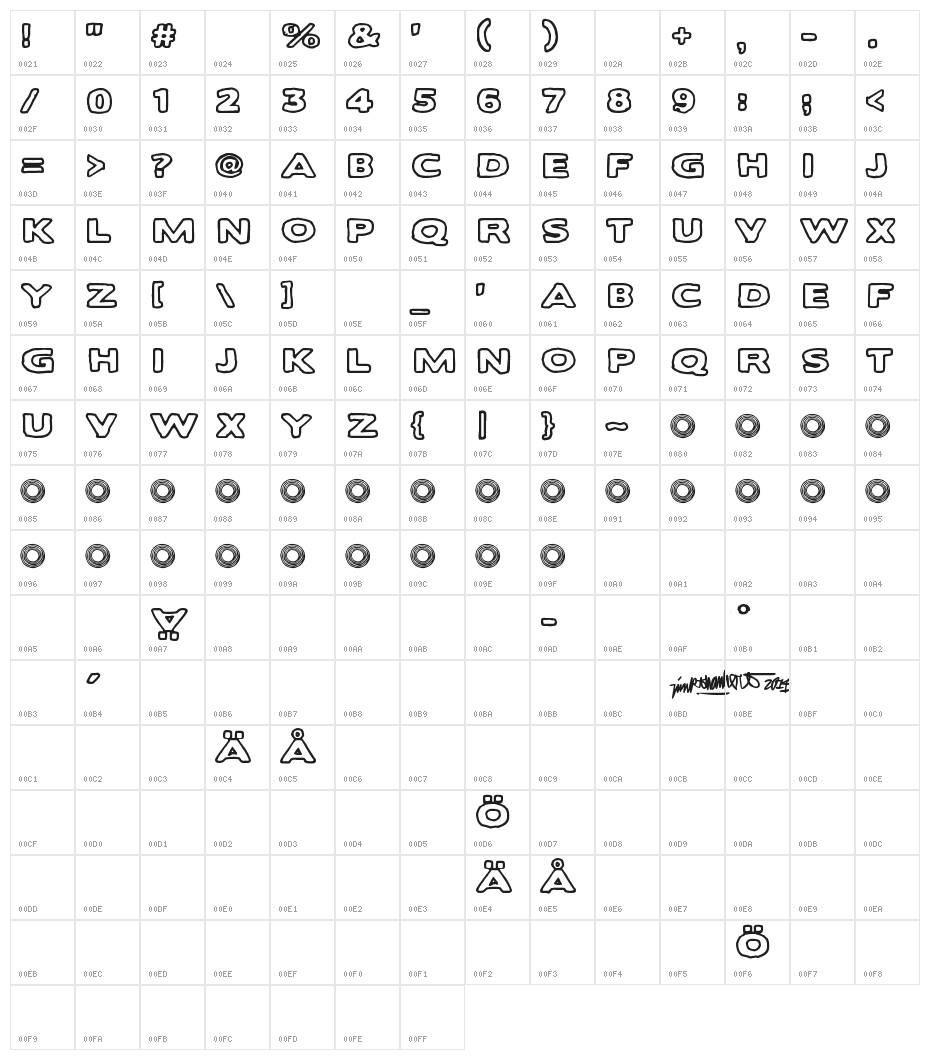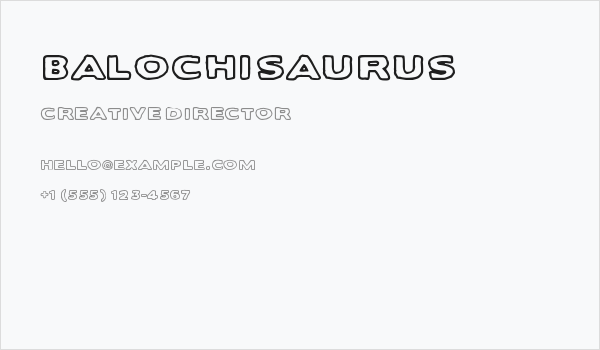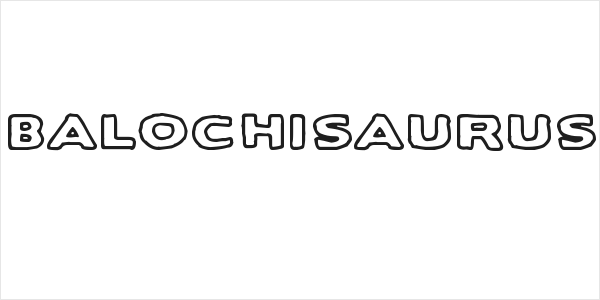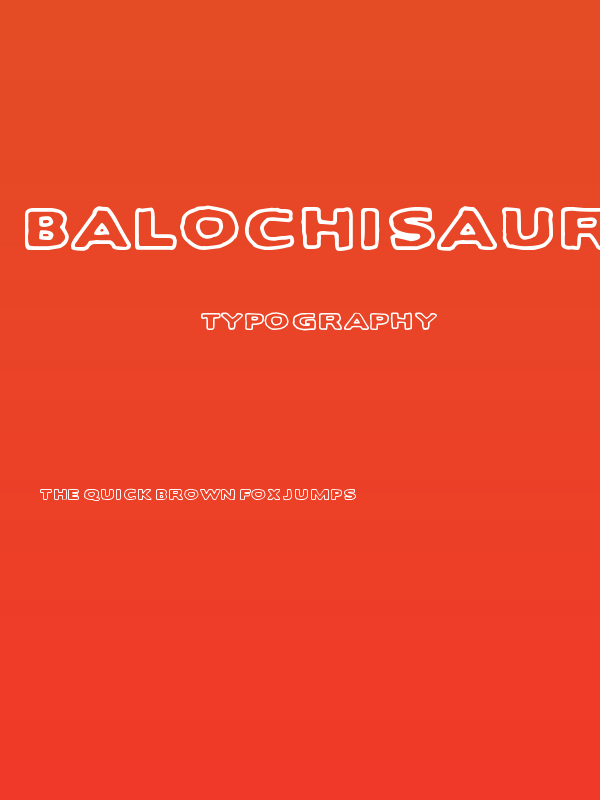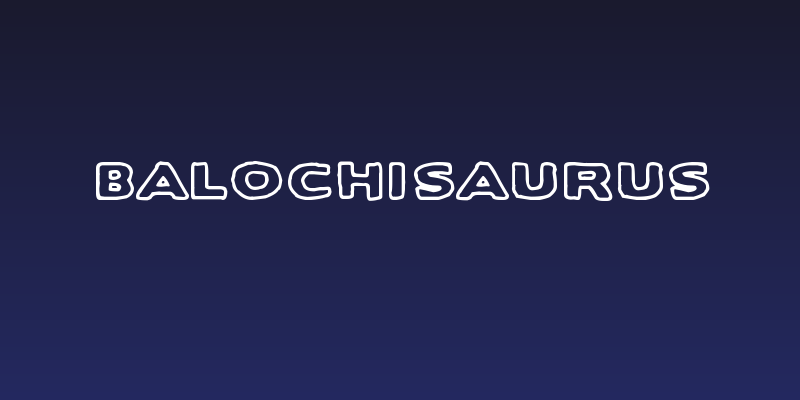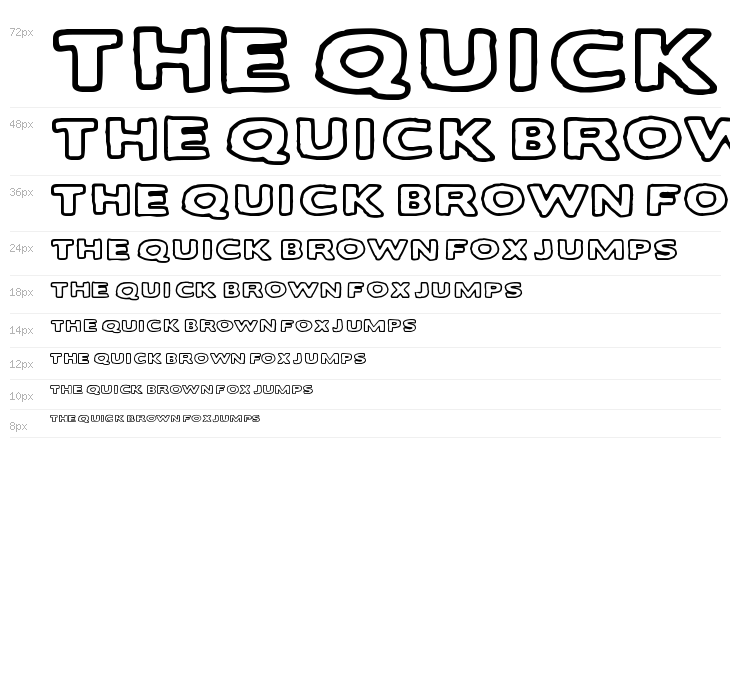
Balochisaurus Font
Balochisaurus Description
This font features a bold, playful style with a thick outline around each character, giving it a cartoonish and dynamic appearance. The letters are uppercase and lowercase, with a consistent width and rounded edges that add to its approachable and friendly look. The numbers and special characters maintain this style, ensuring uniformity across all glyphs. The font's design is eye-catching and ideal for projects that require a fun and informal tone. Its thick outlines make it stand out, making it suitable for headlines and titles where visibility is key.
| Overall Style | Playful, Cartoonish |
| Proposed Projects | Ideal for children's books, comic strips, playful branding, and event posters. |